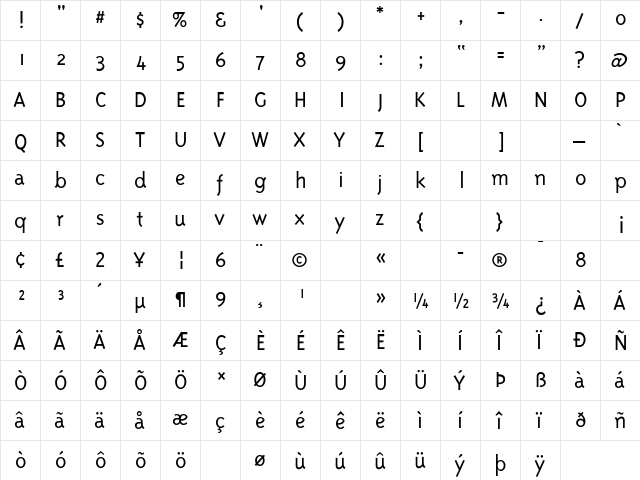
PannikinLightSSK Regular
Design Context for PannikinLightSSK Typeface
PannikinLightSSK offers clean, dependable letterforms without strong stylistic allegiance, making it a practical choice for designers who need flexibility. Its slender proportions lend an understated elegance to any composition.
Pro Tip: Use PannikinLightSSK in both headline and body roles to test its range before committing to a single application.